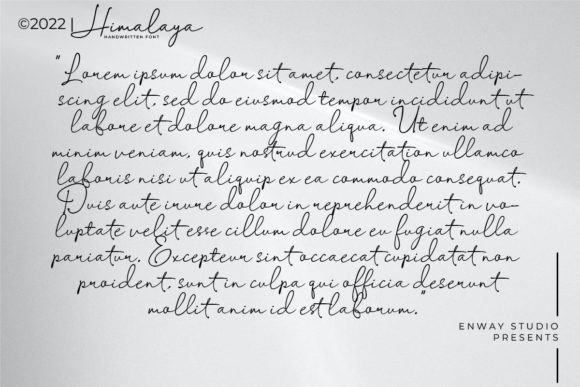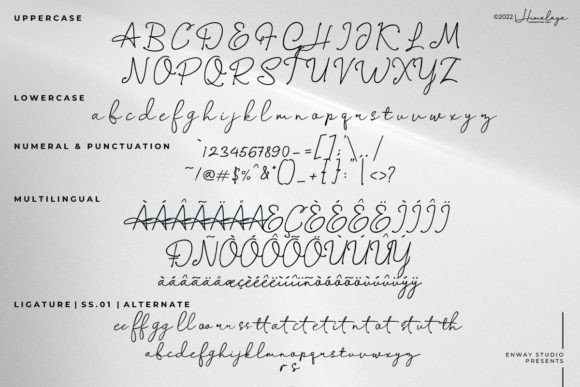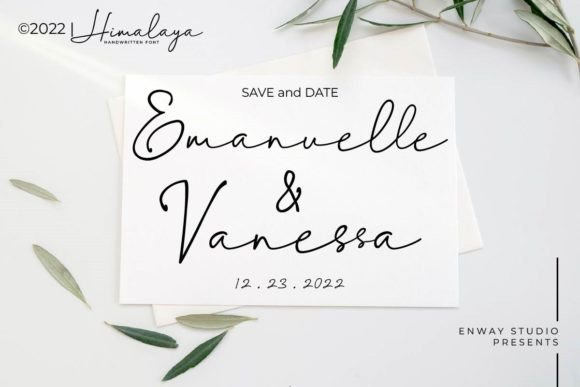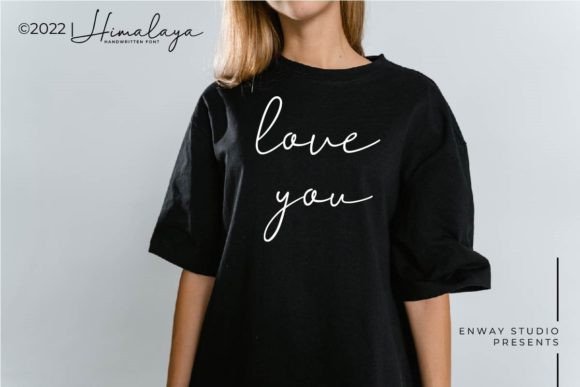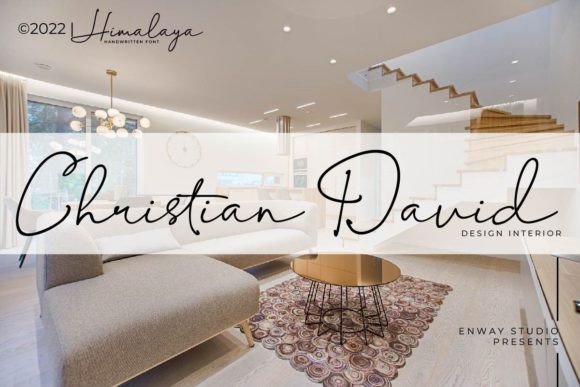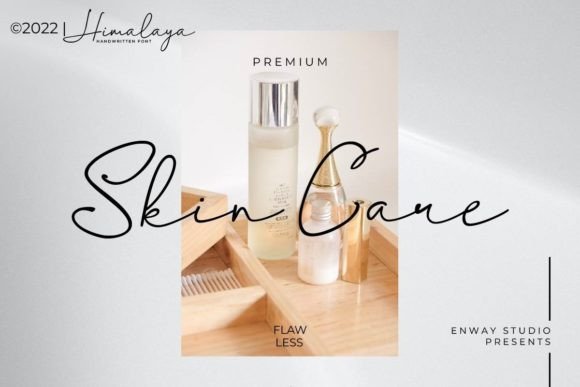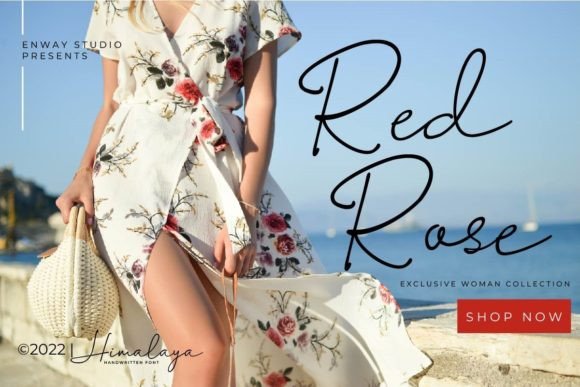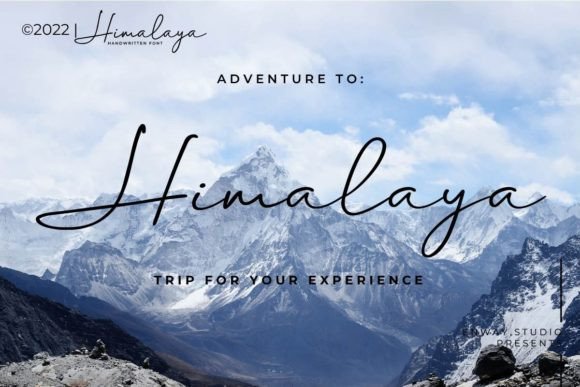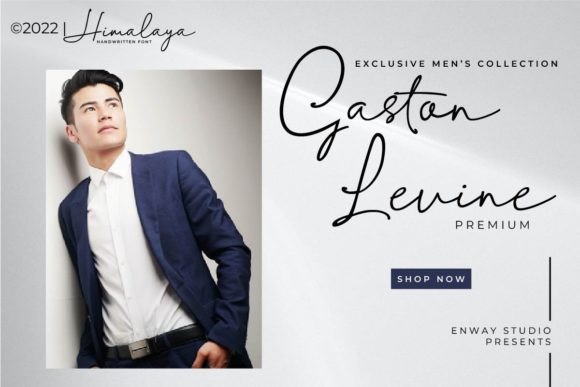
Himalaya Font
Add a Natural Flow with Himalaya Handwritten Font
The Himalaya Handwritten Font is a beautifully crafted, natural script that brings an organic and personal feel to your designs. Inspired by real handwriting, this font is ideal for creative projects that call for authenticity and elegance. Whether you’re branding a company, designing a wedding invitation, or creating stylish marketing materials, Himalaya adds a graceful, human touch.
Ideal for Logos, Invitations, and Business Materials
Himalaya is highly effective for branding projects, company logos, business cards, and wedding invitations. Its smooth, flowing lines mirror the effortless motion of natural handwriting, making it feel both personal and professional.
In addition, the font works wonderfully for advertising materials, social media graphics, and promotional campaigns. It helps establish emotional connection through text, which is especially important in industries where storytelling and brand personality matter.
Elegant Script with Realistic Handwritten Style
What sets the Himalaya Handwritten Font apart is its organic structure and easy readability. The handcrafted characters mimic genuine pen strokes, adding depth and emotion to your text. It’s a fantastic choice when you want to avoid sterile, digital fonts and instead showcase something that feels real and intimate.
Moreover, Himalaya is PUA encoded, which allows you to access all glyphs, swashes, and alternate characters easily—no additional design software needed. This gives you full creative freedom and customization for your projects.
Versatile Across Print and Digital Platforms
Whether you’re designing for digital screens or print layouts, Himalaya delivers consistent performance. It remains legible across various sizes, making it suitable for both headline text and detailed subtext.
This font is also highly adaptable in layered compositions. You can pair it with minimalist sans-serif fonts to create modern contrast, or use it as the main highlight in personalized templates, packaging, and signature branding.
Why Choose Himalaya Handwritten Font?
Here are some reasons Himalaya is a top pick for designers:
• Authentic, handwritten script with a natural look
• Perfect for logos, business cards, and wedding designs
• PUA encoded for full glyph and swash access
• Clean and legible across all formats and sizes
• Adds a personal, elegant touch to any project
Make Your Text Feel Authentic and Meaningful
In conclusion, the Himalaya Handwritten Font is a thoughtful and elegant typeface that brings life and emotion into your design work. Its natural style, professional appeal, and ease of use make it a go-to font for creators who want to leave a memorable impression.
Whether you’re working on corporate branding or romantic invitations, Himalaya helps your text speak with style, sincerity, and grace.